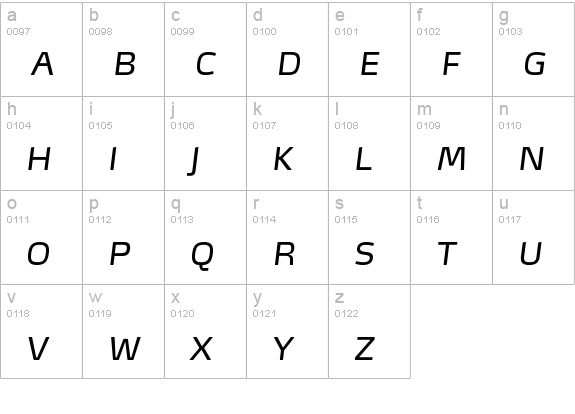
MaxTF-LightItalicSC is a stunning and elegant font that exudes sophistication and charm. With its delicate and slanted italics, this font adds a touch of modernity and style to any project. Perfect for adding a touch of class to invitations, logos, or branding materials, MaxTF-LightItalicSC is versatile and eye-catching. What makes MaxTF-LightItalicSC even more appealing is that it is available for free download at FontsMarket.com. This means you can easily access this beautiful font and incorporate it into your designs without any cost. Whether you are a professional designer or a hobbyist looking to elevate your creations, MaxTF-LightItalicSC is a fantastic choice that won't break the bank. Download it today and let your creativity shine with this stunning font.